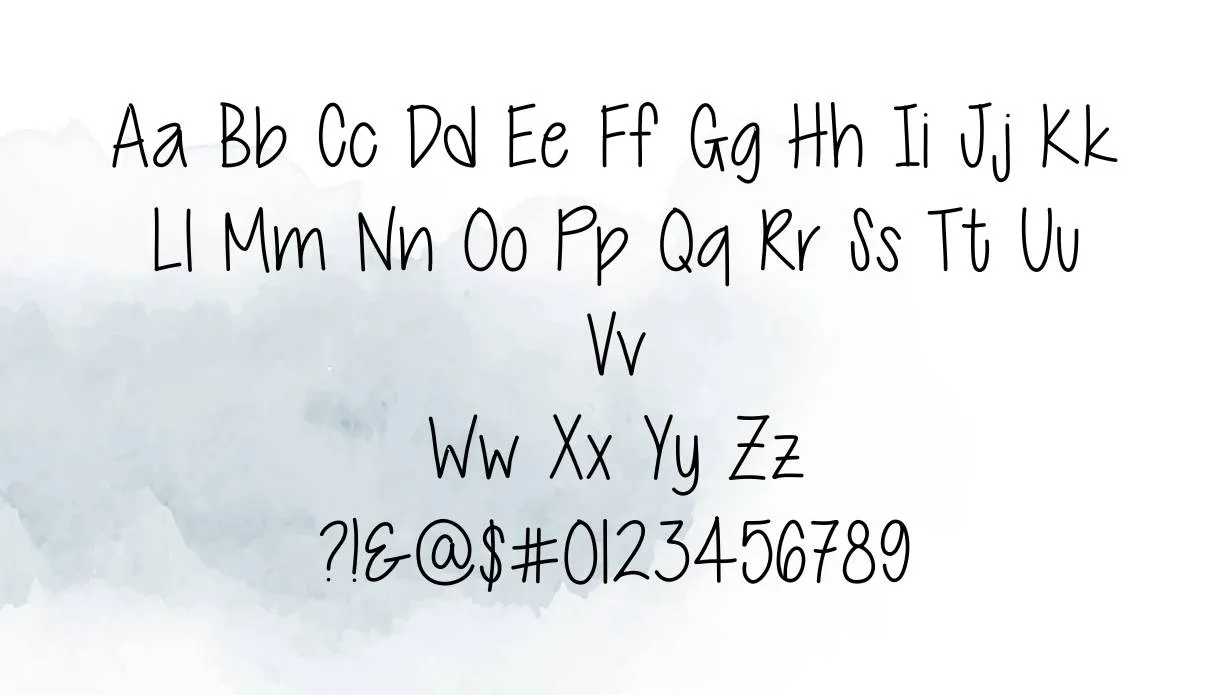
The Cutie Patootie font offers a playful and adorable aesthetic, often sought for children’s book covers or designs needing a touch of charm. Programs like Illustrator or Canva are perfect for crafting delightful logos or headings using this font.